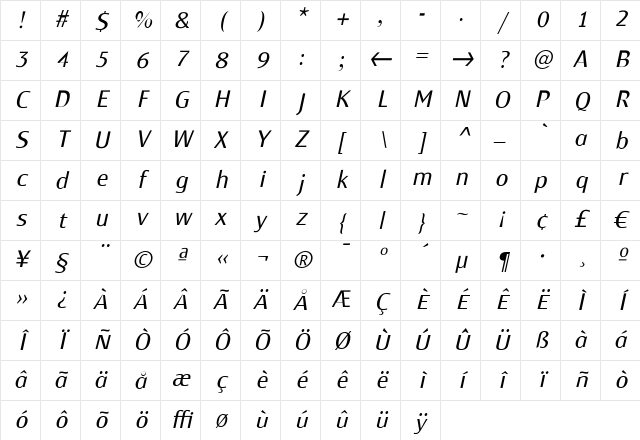
Monem Light Italic Free Font
Monem Light Italic
Foundry: Gert Wiescher, Wiescher-Design, Munich, Germany, www.wiescher-design.de
Design Context for Monem Light
Monem Light is a composed and adaptable typeface that performs quietly and consistently across a wide range of design contexts. The slanted form adds forward momentum and visual energy. Its slender proportions lend an understated elegance to any composition.
Pro Tip: Use Monem Light for emphasis, pull quotes, and subheadings where its slanted energy can add rhythm to the layout.
Who designed the Monem Light Italic font?